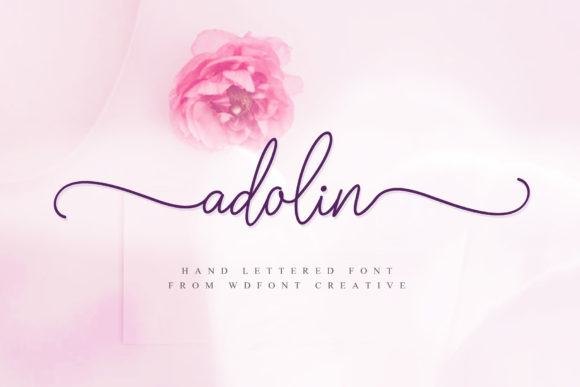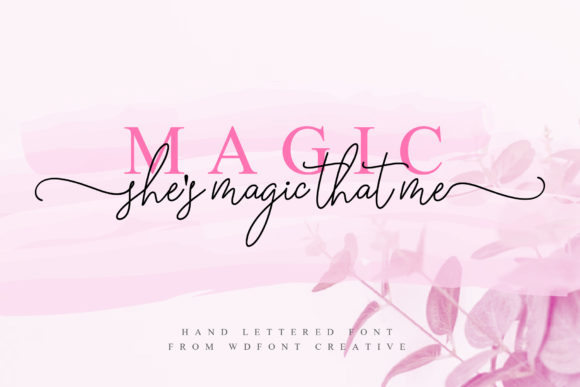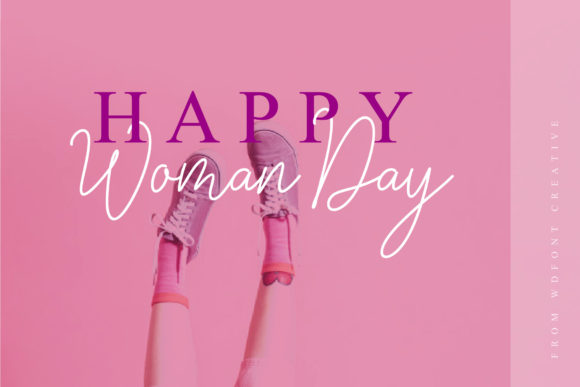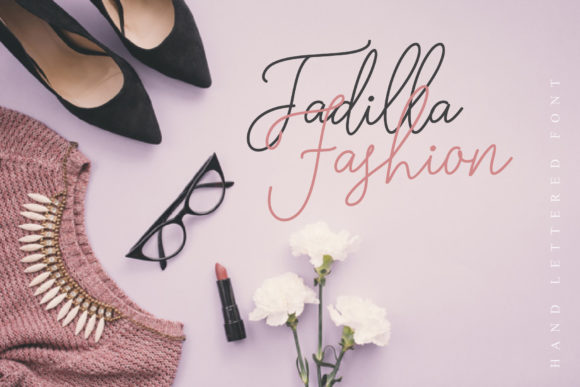
HomeScript FontsAdolin Font Script Fonts Adolin Font FacebookXPinterestWhatsApp Adolin Font Poster 2 Adolin Font Poster 3 Adolin Font Poster 4 About Adolin Font Adolin is an elegant and classic handwritten font that will add a spark of magic to any design project. DOWNLOAD NOW People also explored Sunfloweria Font Longbow BB Bursen Font Assay Wenistar Font Object Font Arkelogue Bold Font Balton Font Lagi Font 317 0 TagsAdolin Font Previous articleJust Kelly Justine Duo FontNext articleDancing Font LEAVE A REPLY Cancel reply Comment: Please enter your comment! Name:* Please enter your name here Email:* You have entered an incorrect email address! Please enter your email address here Website: Save my name, email, and website in this browser for the next time I comment. Personal Use Free Calling Personal Use Free Read more about this font Densmore Personal Use Free Read more about this font Husky Stash Personal Use Free Read more about this font Squealer Personal Use Free Read more about this font BLOG Exploring Font Trends Shaping Communication in the Digital Era Fonts, like all design elements, are subject to trends. They play a crucial role in communicating a brand's personality,... Free Fonts Risk: Why Free Fonts Can Be Dangerous for Designers How to Cut Any Font on Cricut: Convert a Font to SVG (Free) Best Fonts for T-Shirt Design – Top 2025 Picks